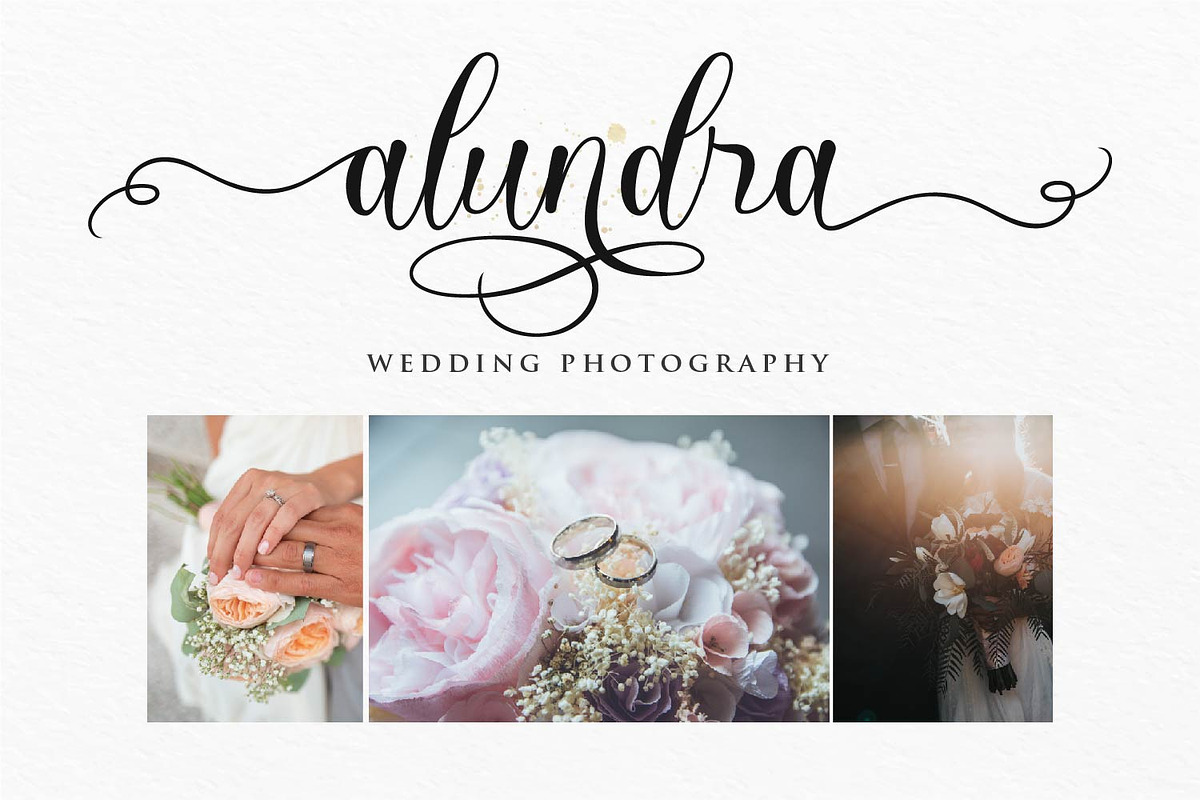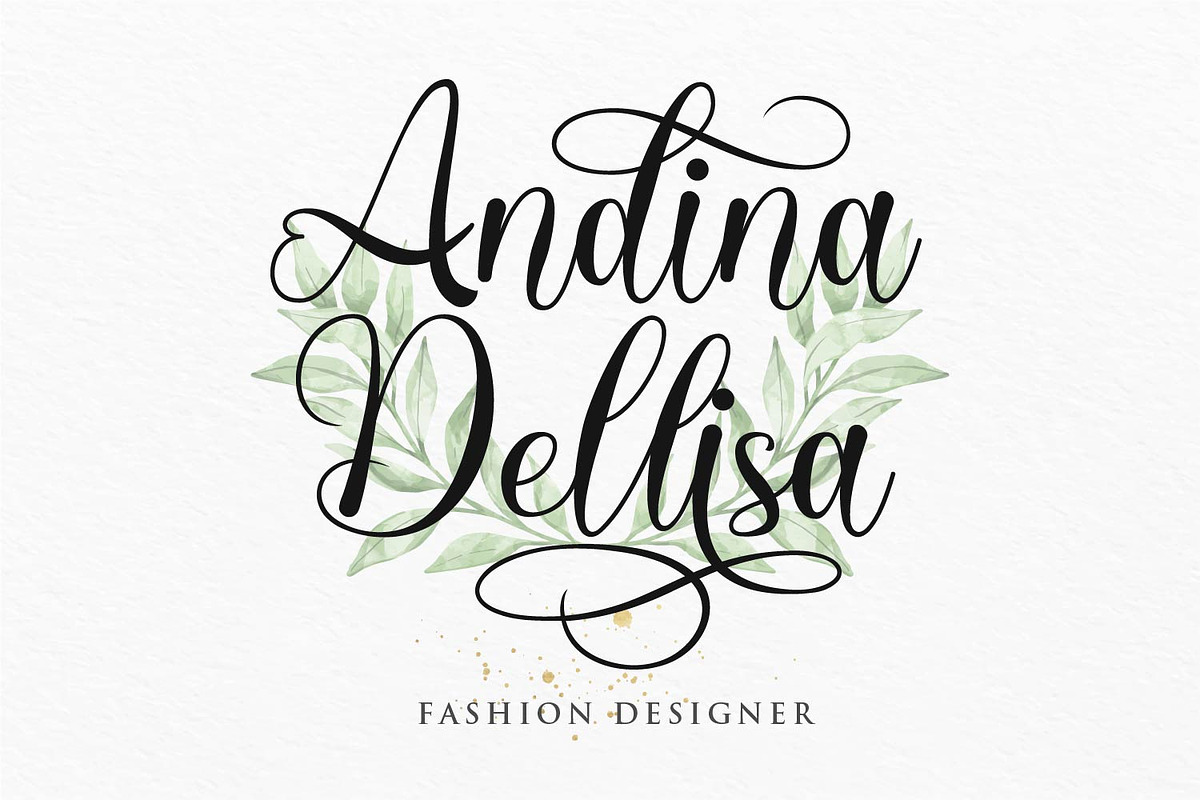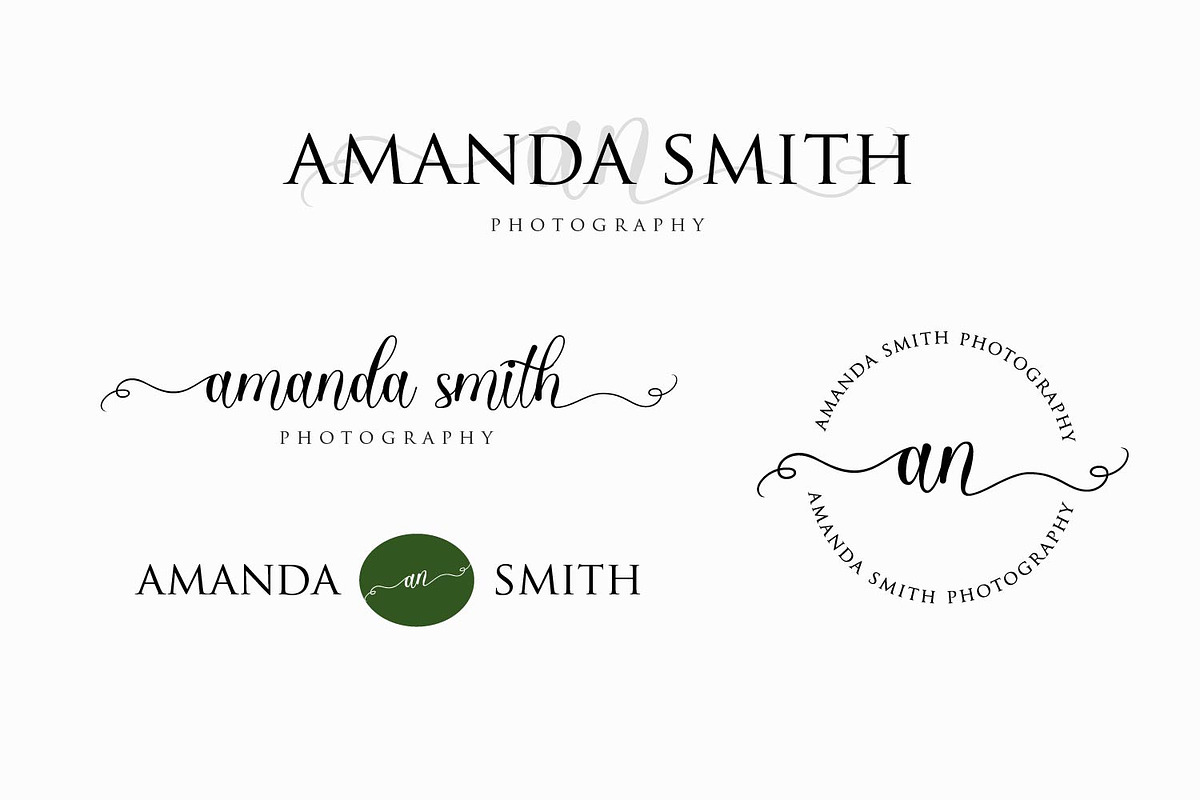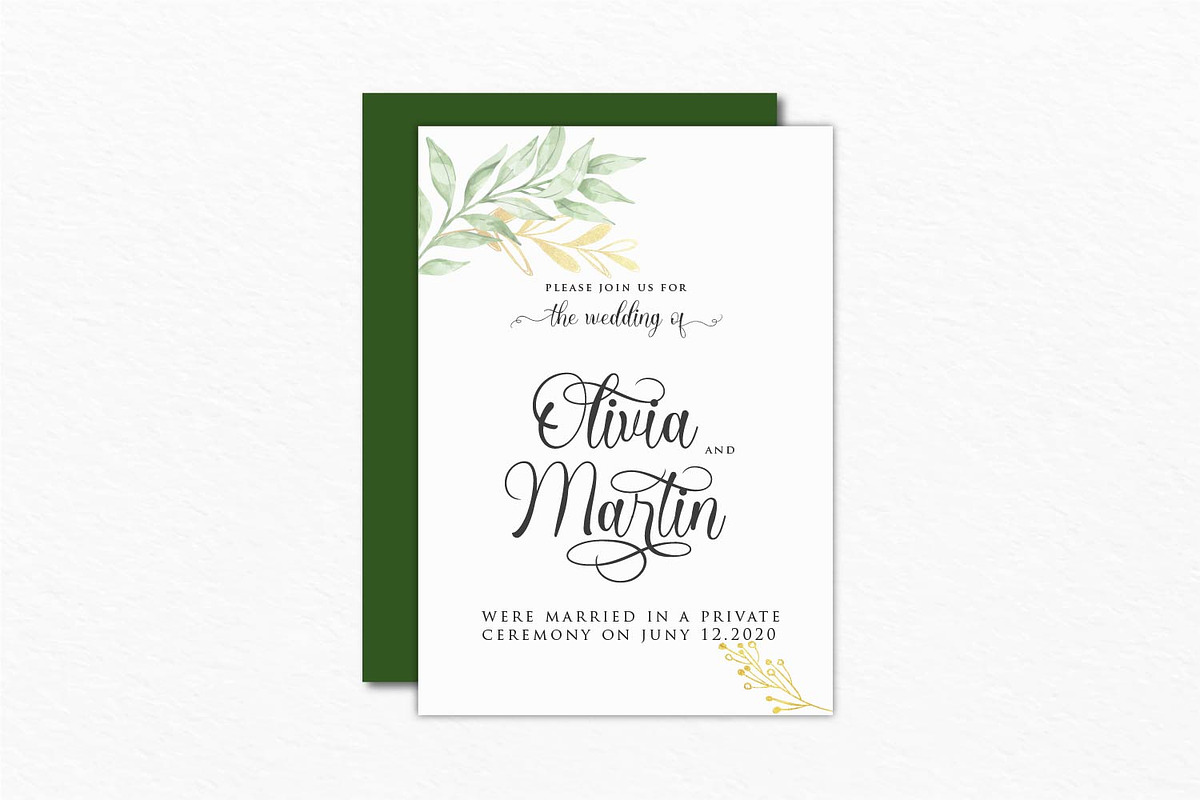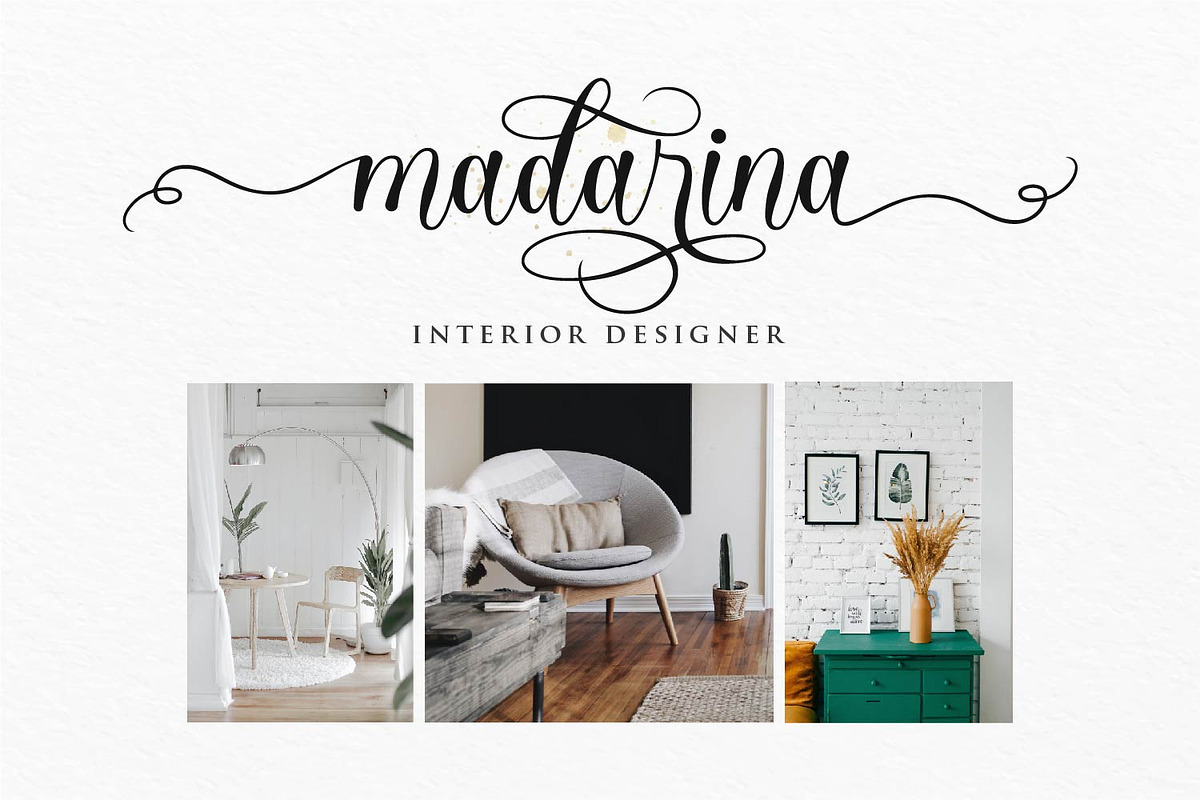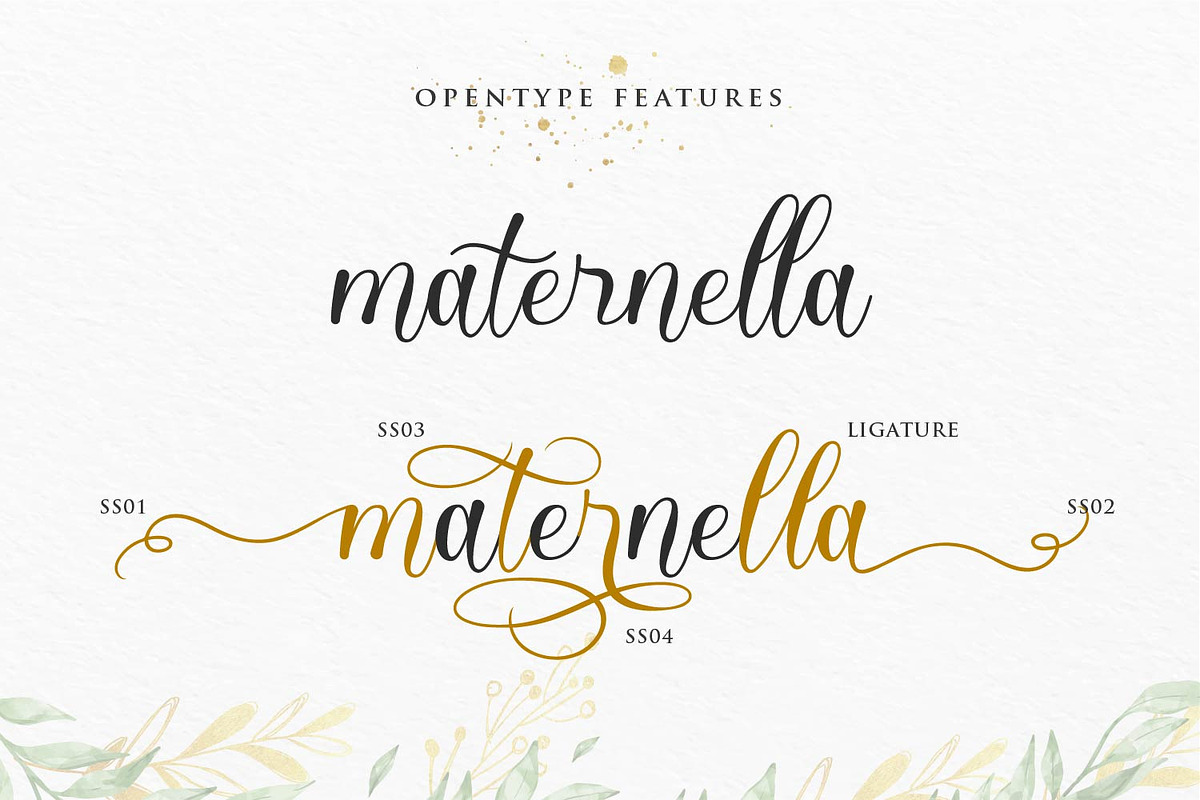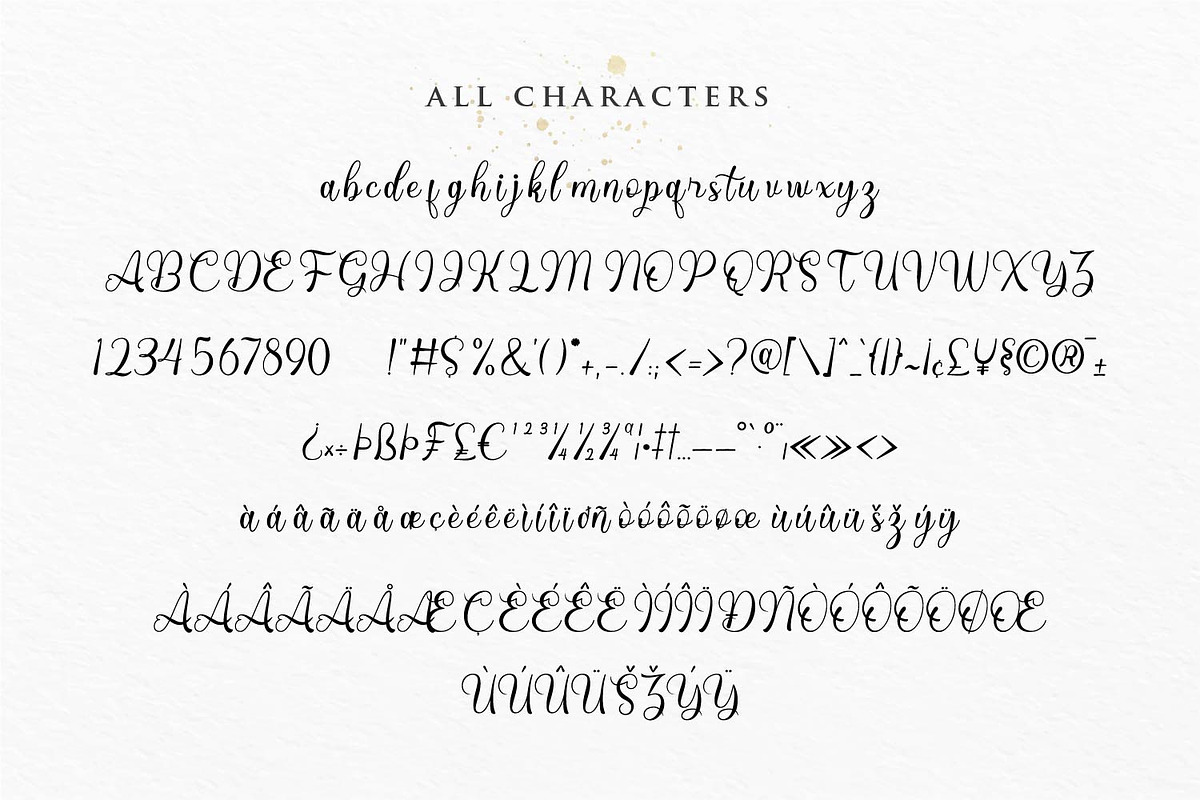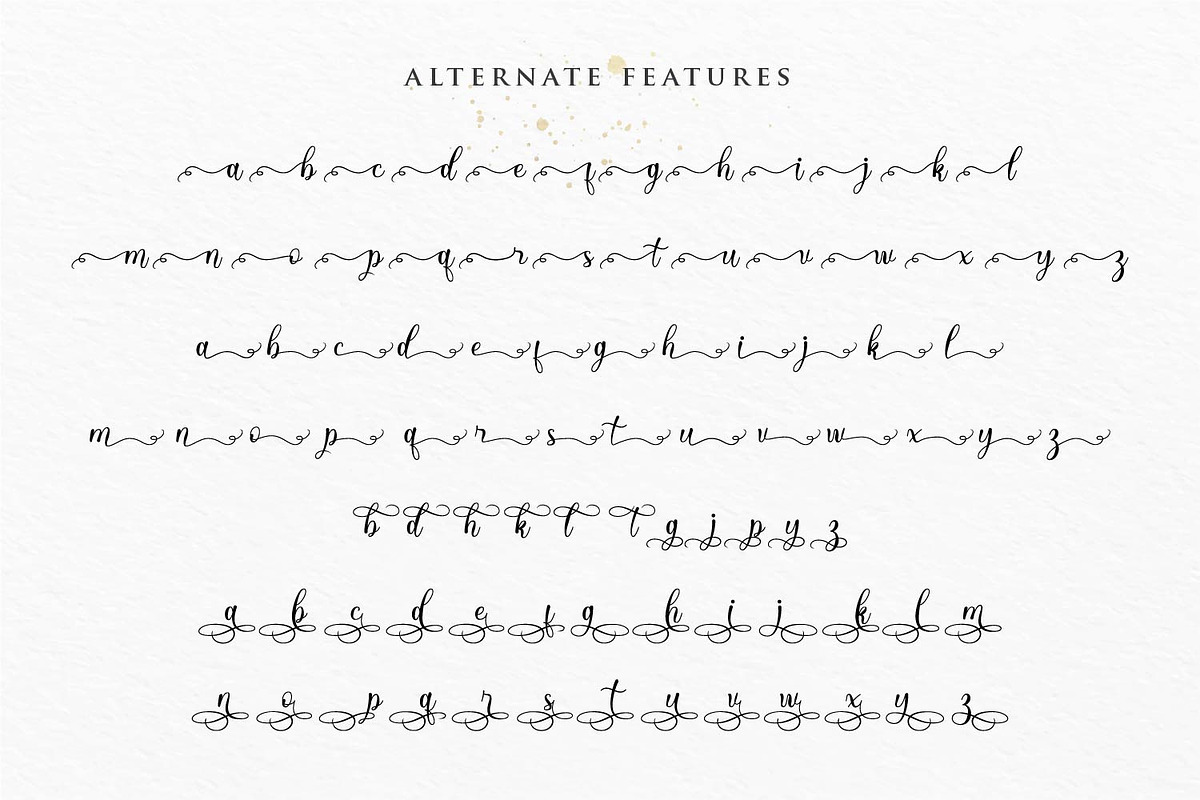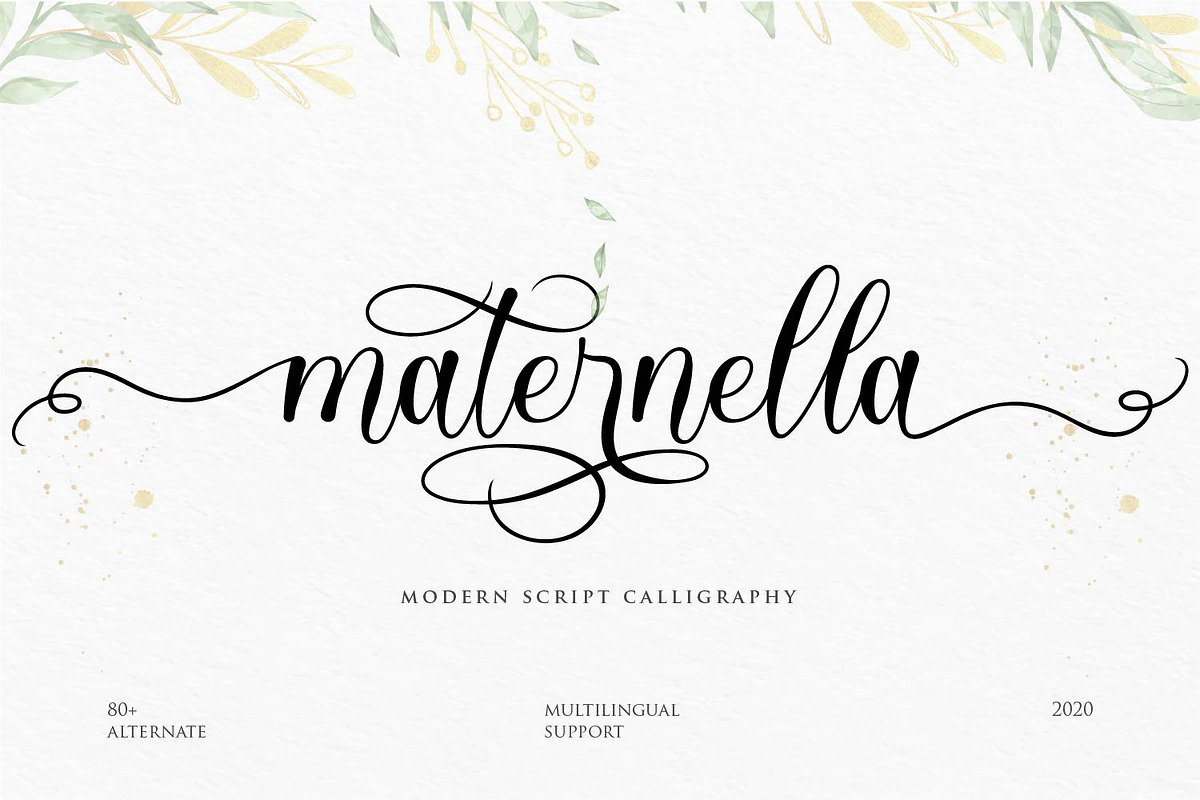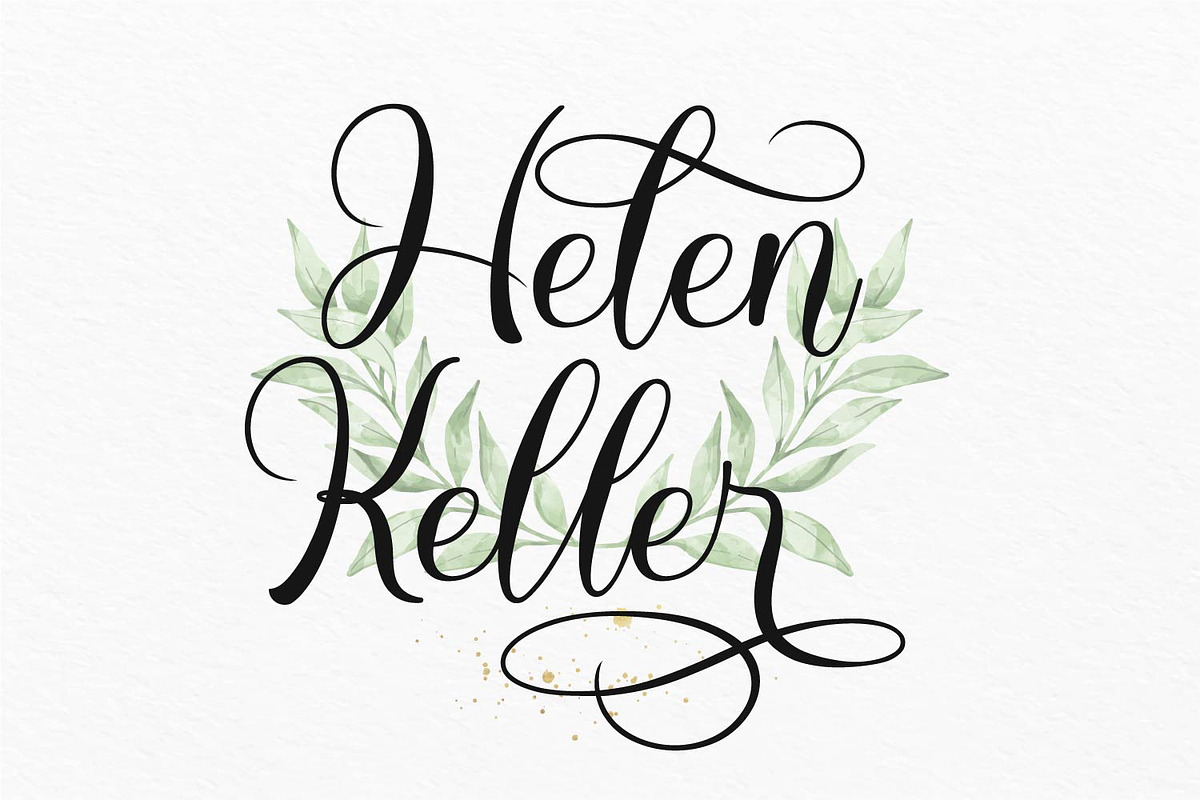
Maternella
Please welcome our latest font collection, Maternella. As you can see in the preview, this font has a very unique style with an alternate that so many say you have many choices for your project.
This font is perfectly made to be applied especially in logos, labels, magazines, books, greeting / wedding cards, packaging, fashion, book covers, and many more you can explore with this font
Feature:
- Numbers and punctuation marks